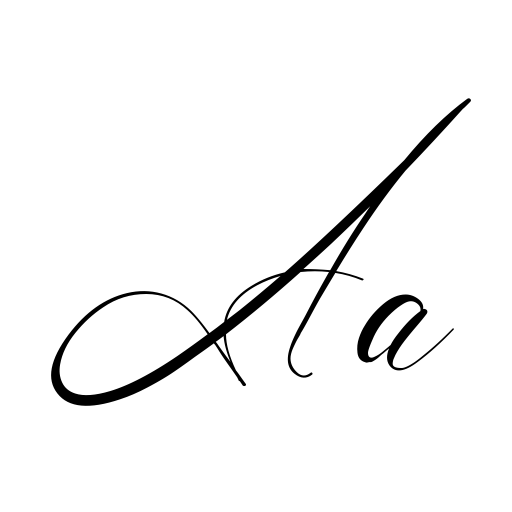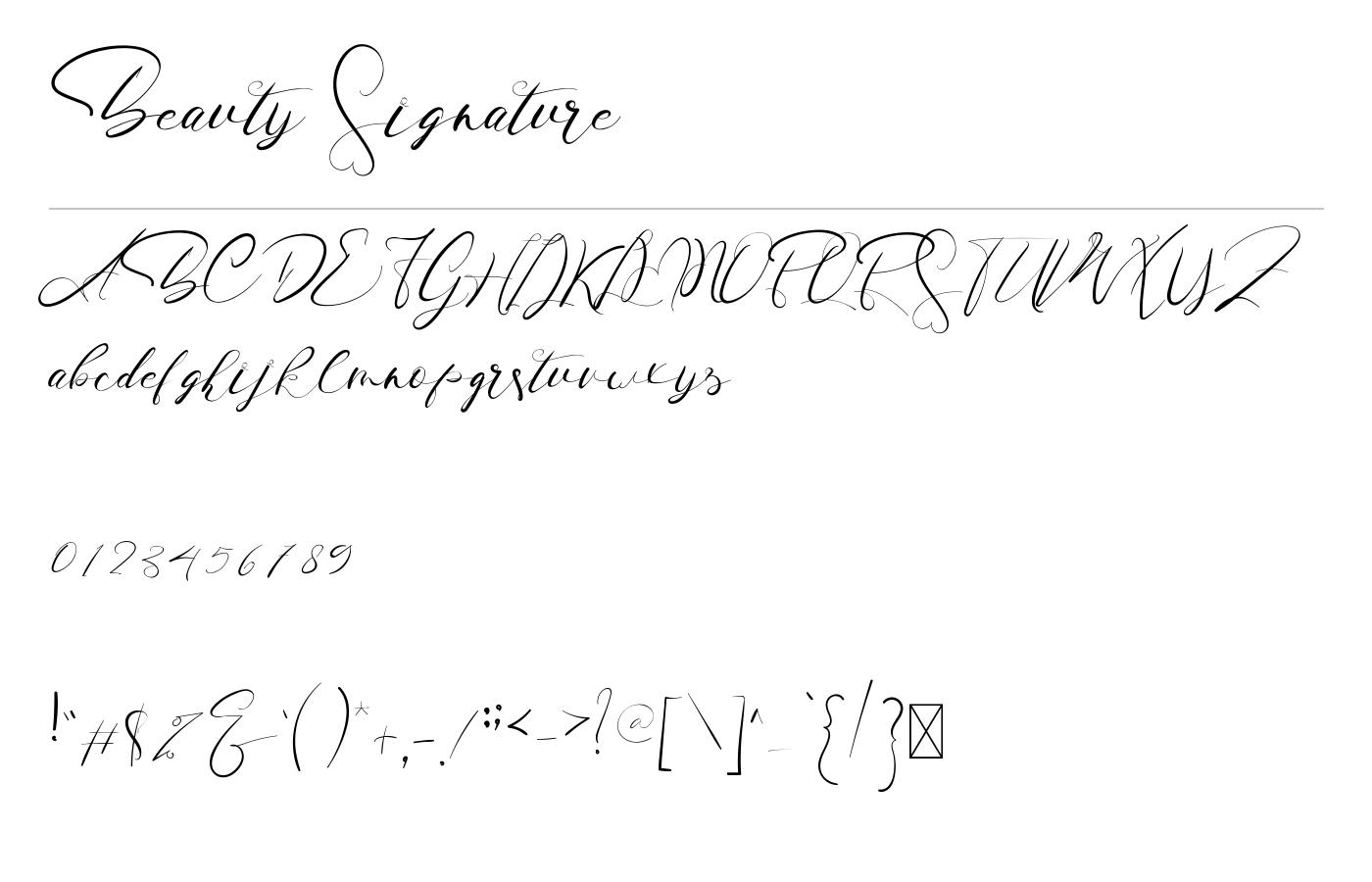
Beauty Signature Font is an elegant, delicate script font that mimics natural handwriting with graceful, flowing strokes and fine hairline details. Its light weight and high contrast create a refined, sophisticated feel, making it perfect for luxury branding, wedding invitations, and stylish logos that want to convey femininity and charm with a personal touch. This font works best in larger display uses where its intricate swashes and unique letterforms can shine.
Beauty Signature Font